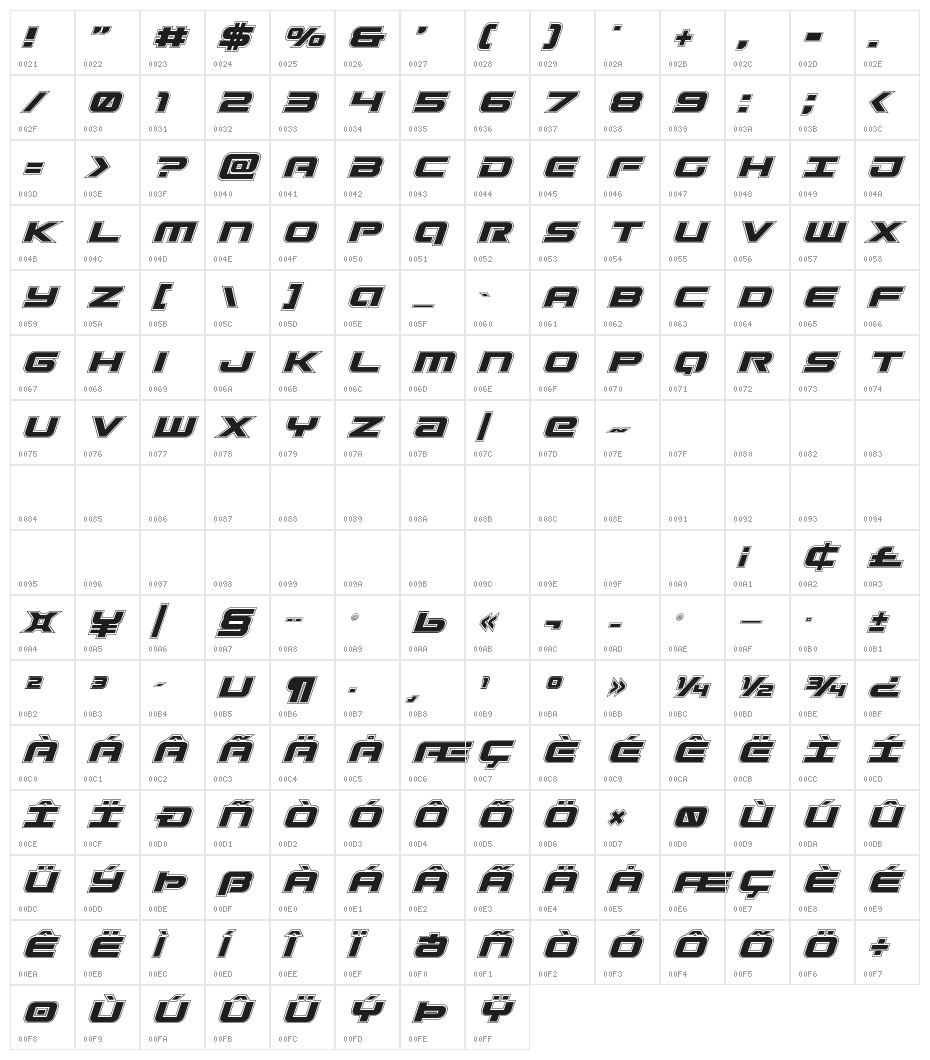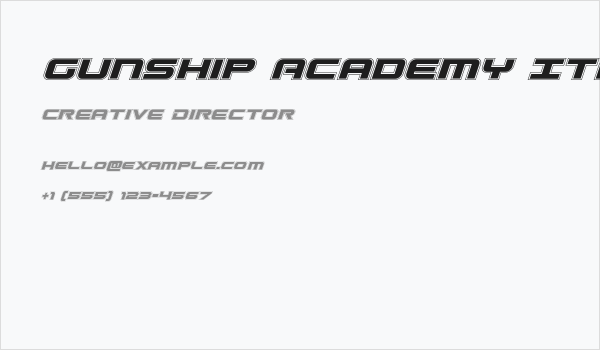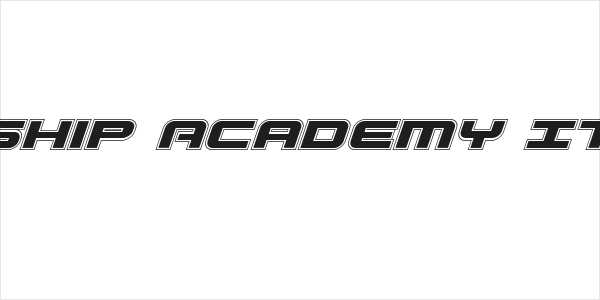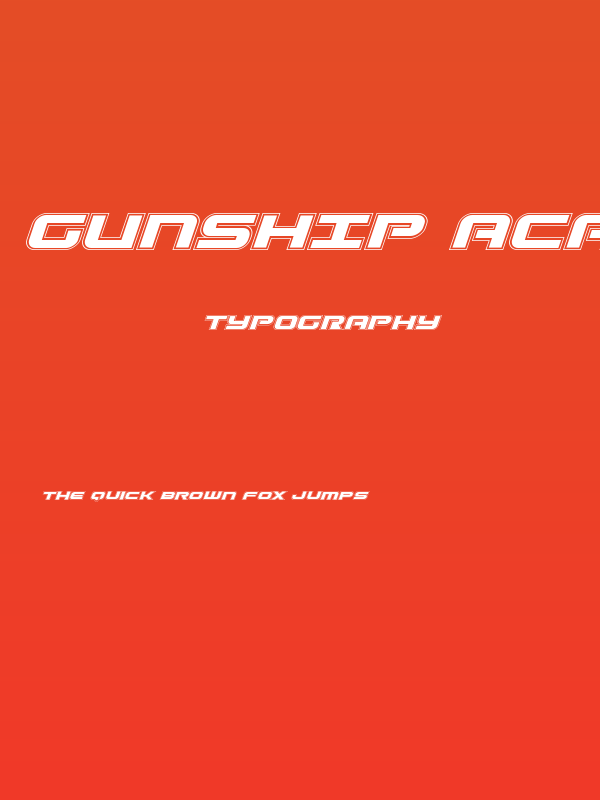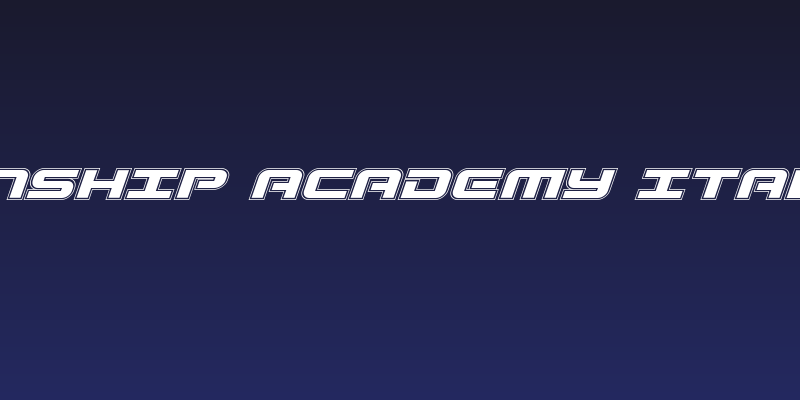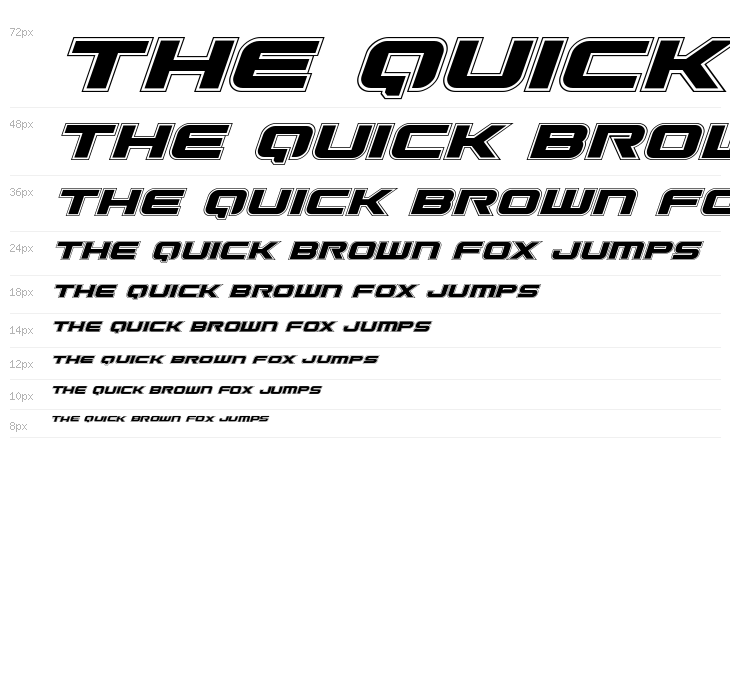
Gunship Academy Italic Font
Gunship Academy Italic Description
This font features a bold, futuristic design with a distinct italic slant, giving it a dynamic and forward-moving appearance. The characters are outlined with a double-layer effect, adding depth and a sense of motion. The angular and geometric shapes of the letters convey a modern and tech-inspired aesthetic. The uppercase and lowercase letters maintain a consistent style, while the numerals and special characters complement the overall design. This font is ideal for projects that require a strong, impactful visual presence.
| Proposed Projects | Ideal for sci-fi themed designs, video game titles, technology branding, and dynamic posters. |